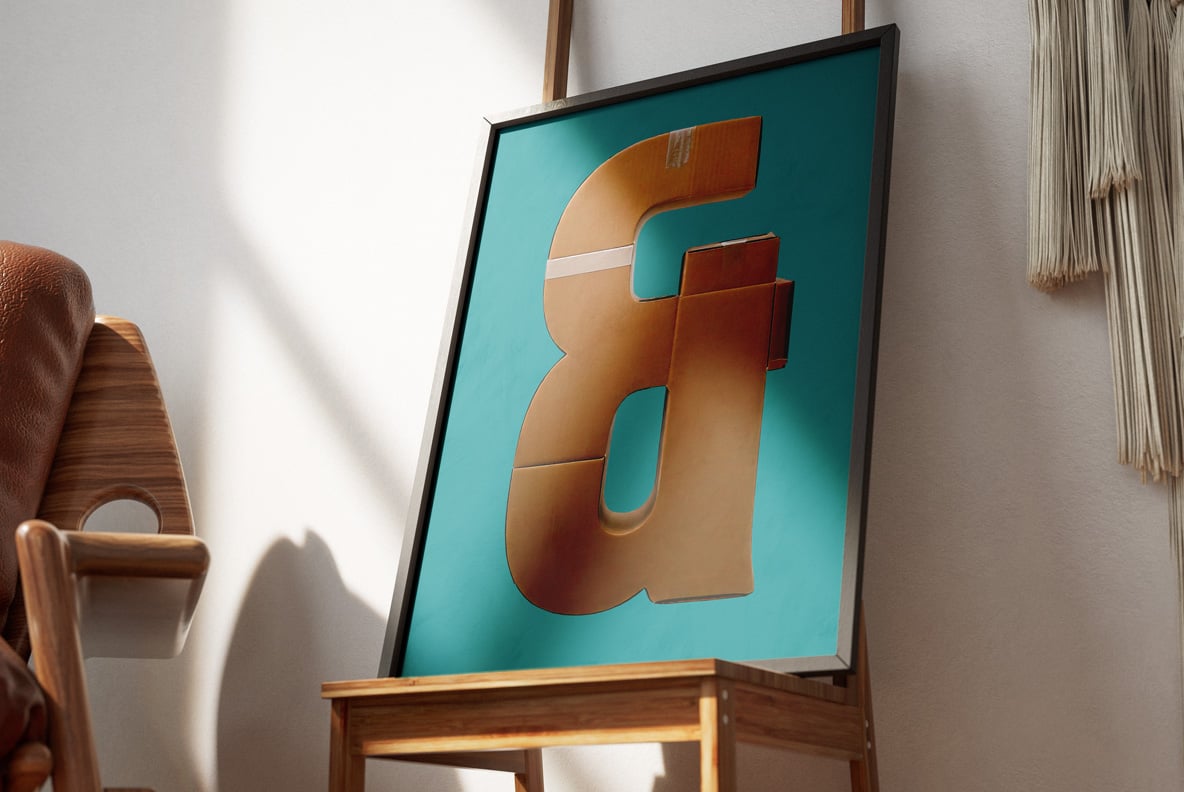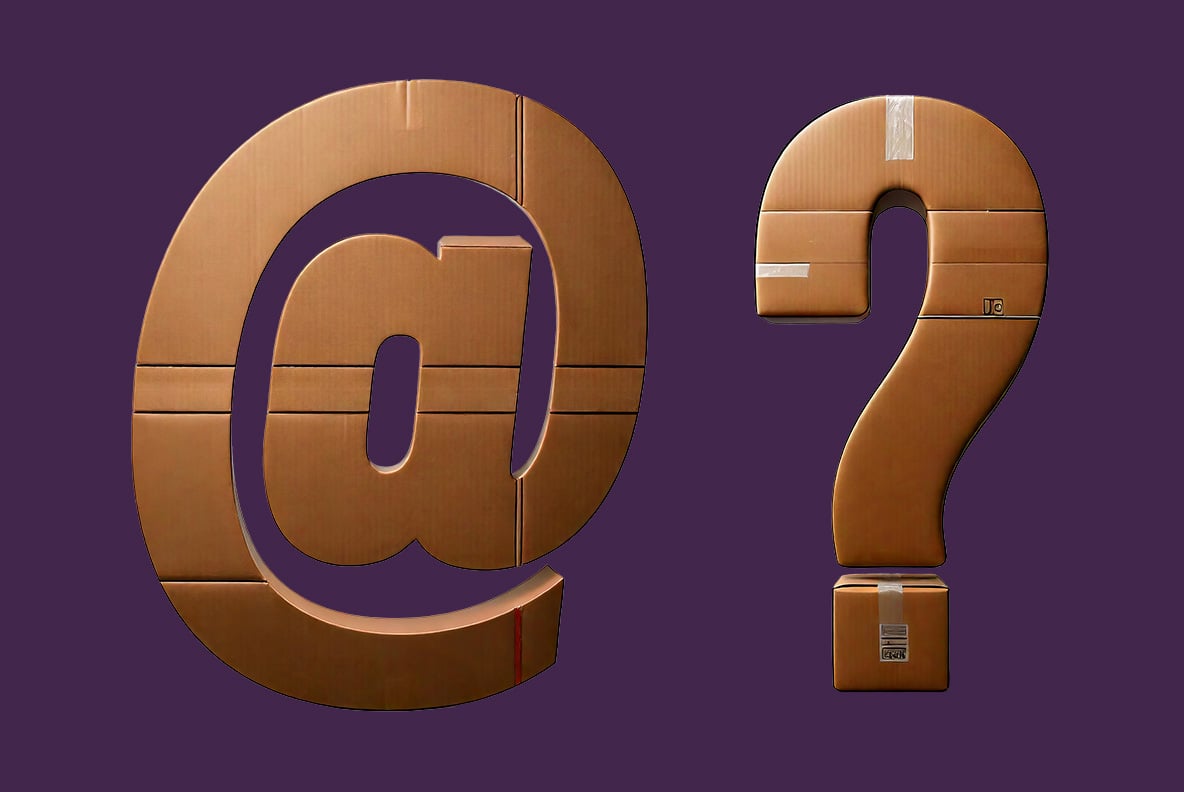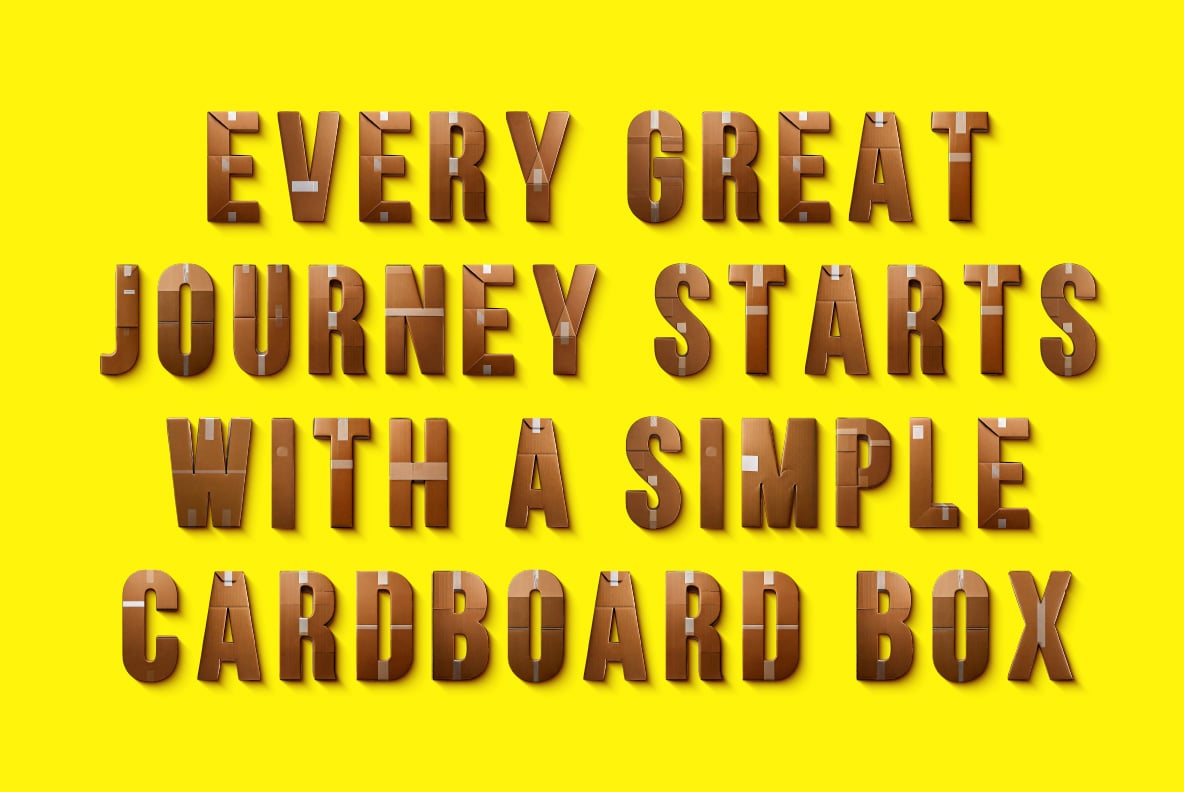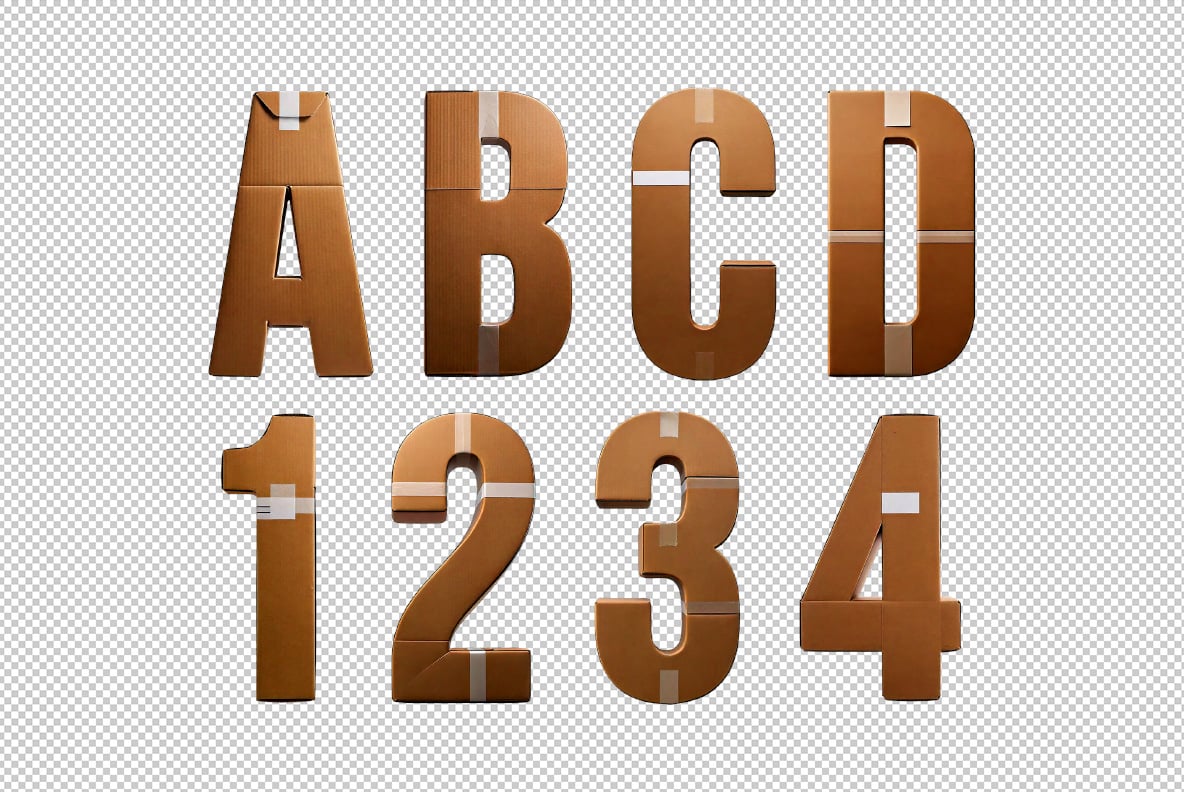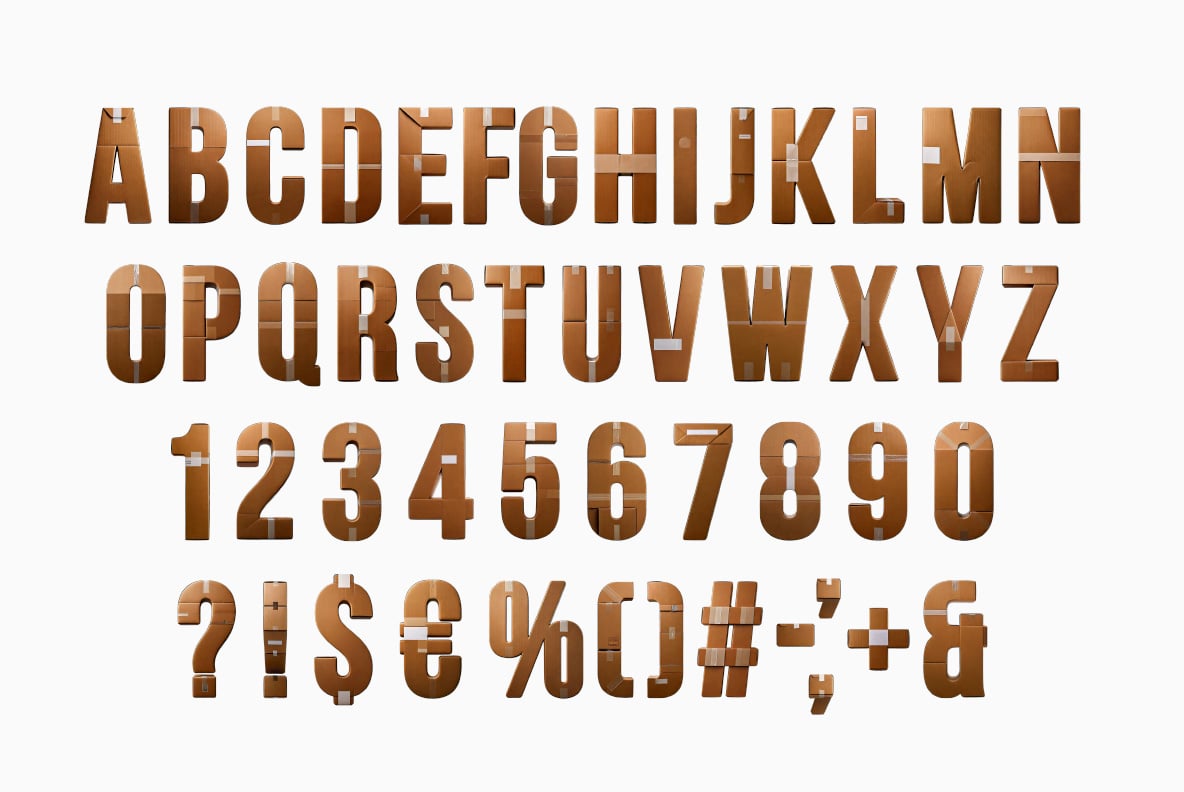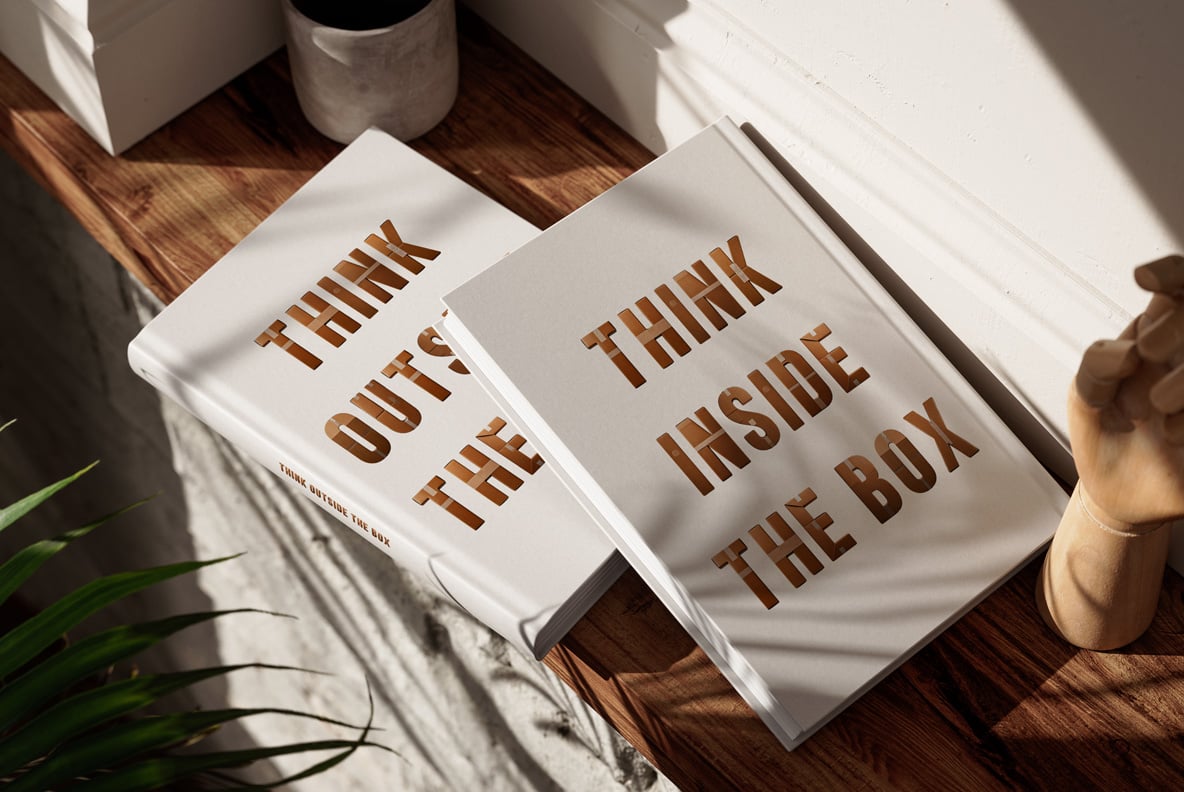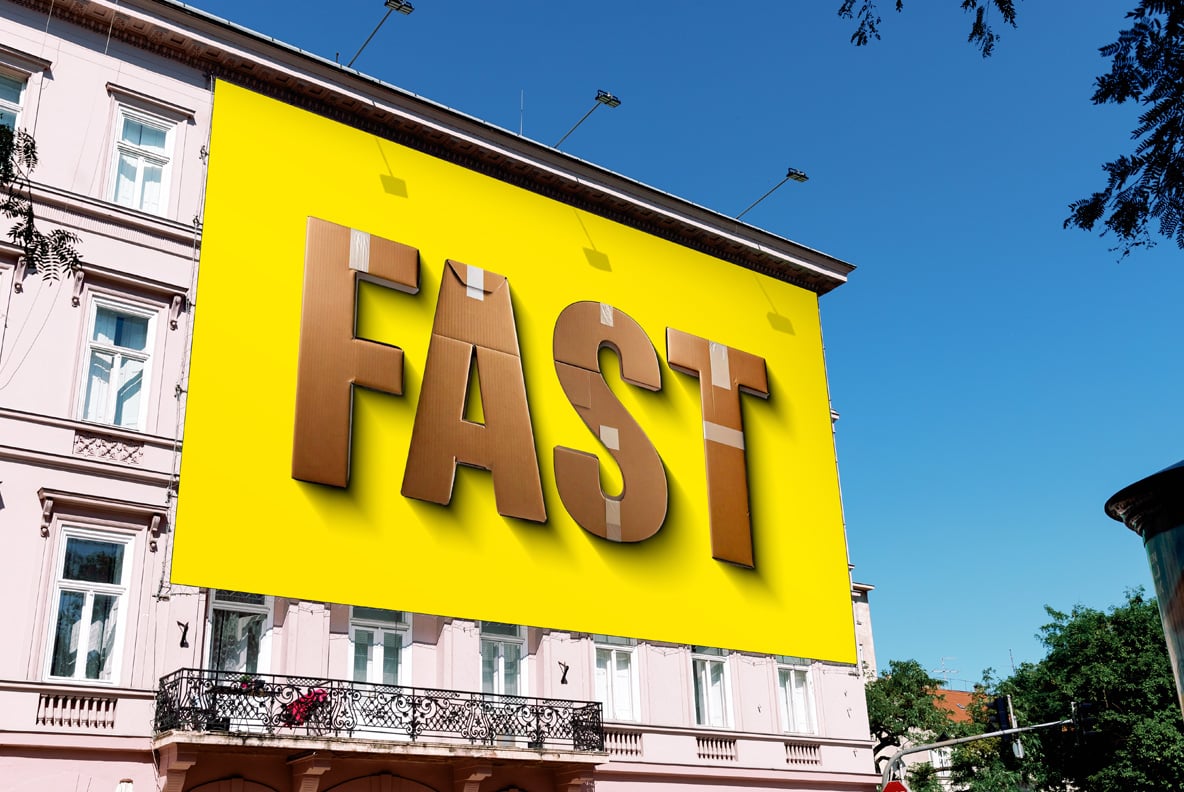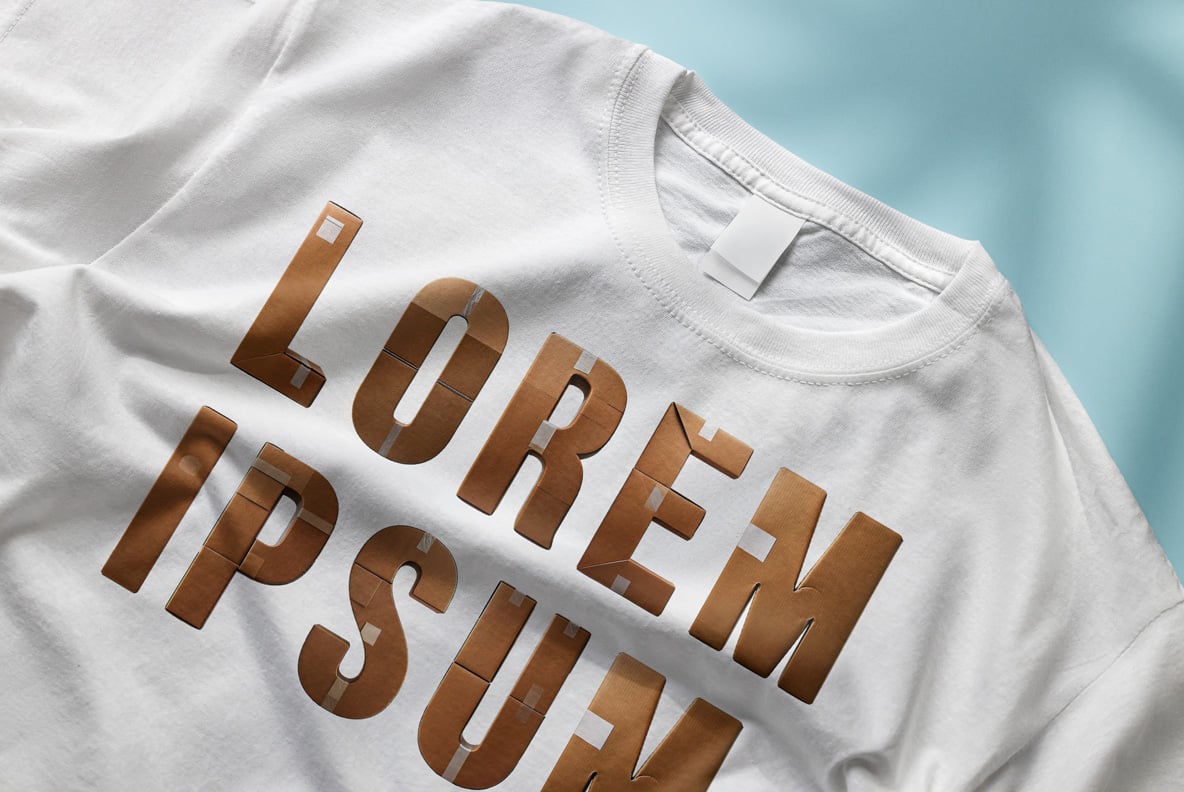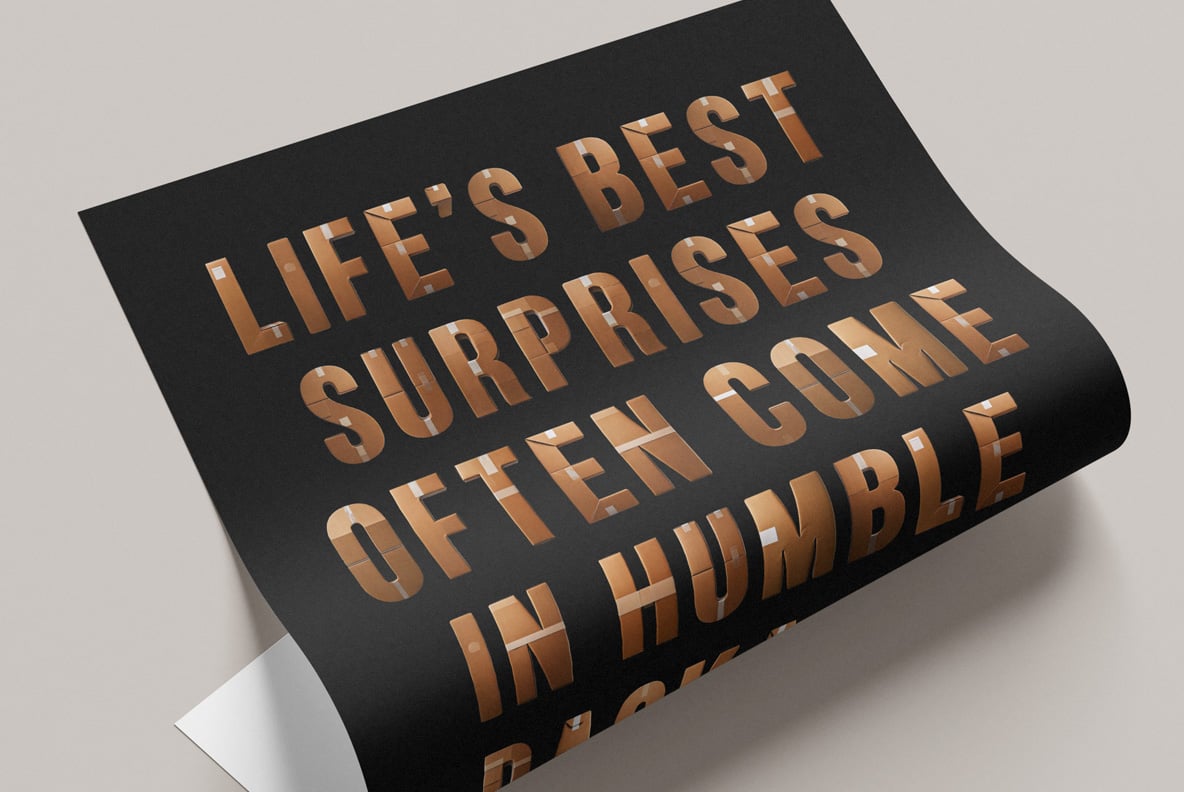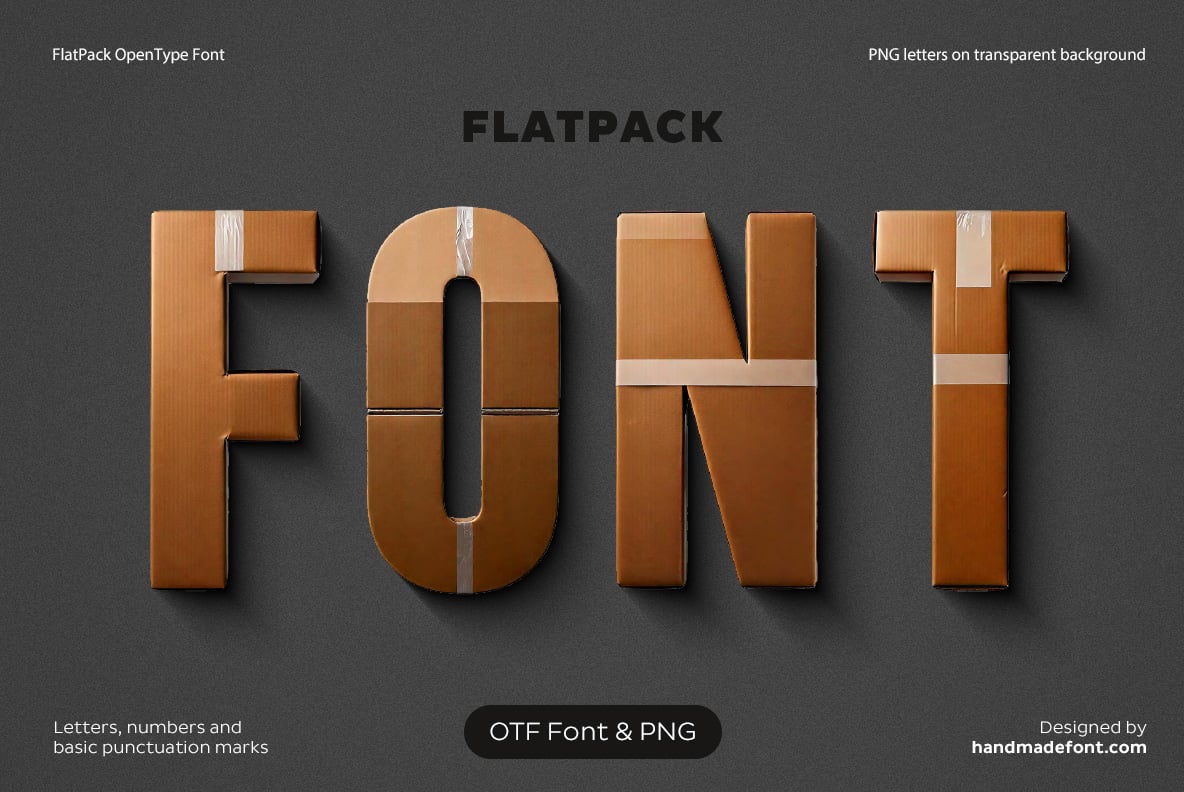
FlatPack Font
Box-inspired creativity meets industrial design in FlatPack Font, a unique typeface crafted to resemble brown corrugated cardboard. Each letter mirrors the textured, packaging-like surface of a cardboard box, complete with subtle creases and realistic folds. The tactile visual effect evokes the charm of recycled materials, blending sustainability with modern aesthetics. Perfect for delivery-themed designs or eco-conscious branding, this box alphabet brings a distinctive edge to any project. FlatPack Font transforms typography into an ode to packaging innovation, making it a versatile and captivating choice for those seeking a bold, delivery-inspired look rooted in industrial and recyclable material design.
Others : ! ? - . ' $ € % @ &